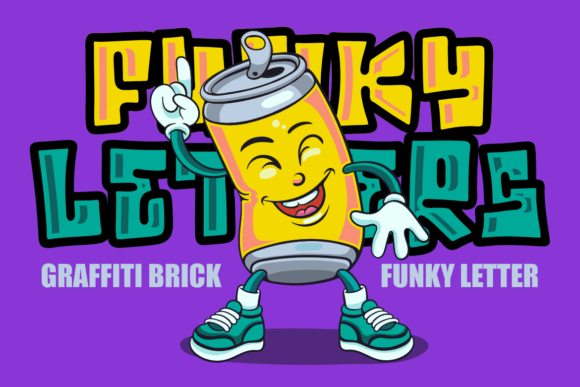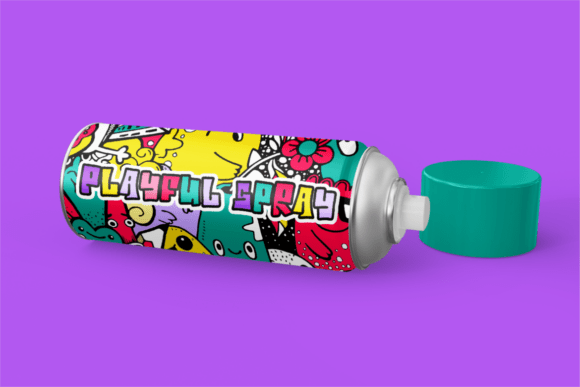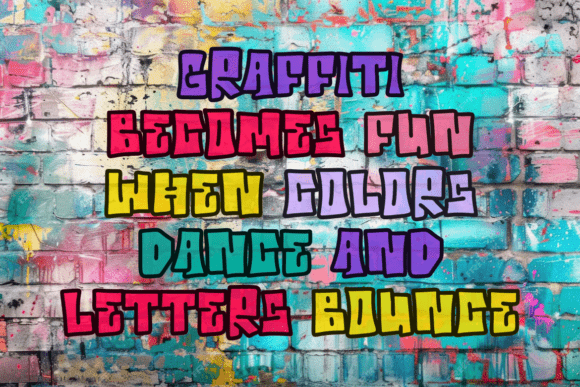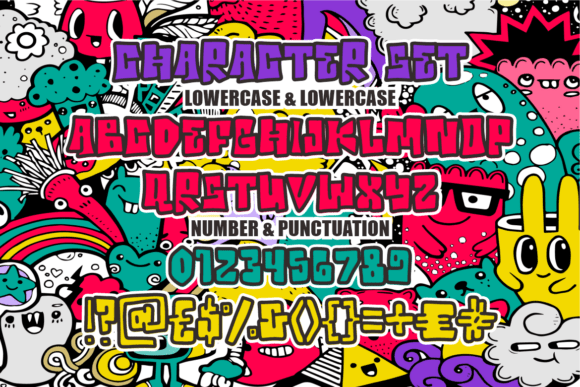
Unleash Your Creativity with Graffiti Brick Font
Are you looking for a font that exudes urban energy and youthful attitude? Look no further than Graffiti Brick – Graffiti Font, a dynamic and vibrant typeface that’s perfect for designs that need to make a statement. Inspired by the colorful spirit of street art and cartoon doodles, this font is sure to add a playful and spontaneous touch to your creative projects.
The Inspiration Behind Graffiti Brick
Graffiti Brick Font draws inspiration from the bold and colorful world of street art. The font features bold, blocky characters wrapped in thick black outlines that mimic real-life graffiti tagging. Each letter has a unique, hand-drawn irregularity that creates a fun, spontaneous rhythm, giving your designs a rebellious charm that’s sure to grab attention.
Key Features of Graffiti Brick Font
- Bold and Blocky Characters: Graffiti Brick Font features bold, blocky characters that are perfect for designs that need to shout, pop, and play.
- Thick Black Outlines: The font’s thick black outlines mimic real-life graffiti tagging, adding a touch of authenticity to your designs.
- Hand-Drawn Irregularities: Each letter has a unique, hand-drawn irregularity that creates a fun, spontaneous rhythm.
- Multicolored Showcase Styling: The font’s multicolored showcase styling gives it a playful and youthful vibe.
- Playful Asymmetry: Graffiti Brick Font’s playful asymmetry adds to its rebellious charm.
Graffiti Brick Font is ideal for use in a variety of creative projects, including:
- Branding: Add a bold and playful touch to your brand’s identity.
- Poster Headlines: Create eye-catching poster headlines that grab attention.
- Product Packaging: Add a fun and youthful vibe to your product packaging.
- T-Shirt Graphics: Create bold and playful t-shirt graphics that make a statement.
- Children’s Books: Add a playful touch to your children’s book designs.
- Streetwear Promotions: Create bold and eye-catching streetwear promotions.
- Creative Marketing Campaigns: Add a playful and youthful vibe to your creative marketing campaigns.
Why Choose Graffiti Brick Font?
- Unique and Playful Style: Graffiti Brick Font offers a unique and playful style that’s sure to grab attention.
- Versatile: Graffiti Brick Font is versatile and can be used in a variety of creative projects.
- Streetwise Twist: The font’s streetwise twist adds a bold and edgy vibe to your designs.
In conclusion, Graffiti Brick – Graffiti Font is a dynamic and vibrant typeface that’s perfect for designers and crafters looking to add a playful and spontaneous touch to their creative projects. With its bold and blocky characters, thick black outlines, and hand-drawn irregularities, this font is sure to make a statement. Whether you’re designing event posters, sticker sets, or social media graphics, Graffiti Brick Font is the perfect choice.